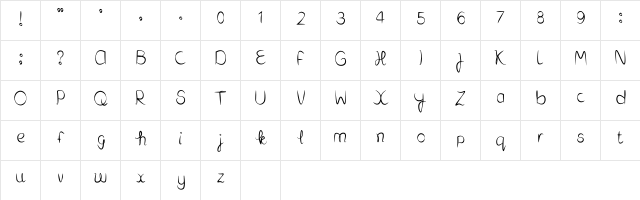
But First Love Regular
Design Context for But First Love Typeface
But First Love is a composed and adaptable typeface that performs quietly and consistently across a wide range of design contexts.